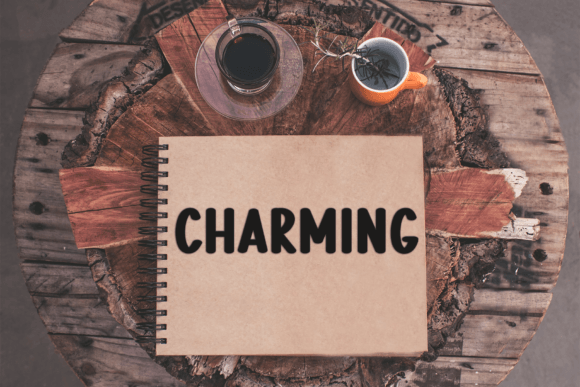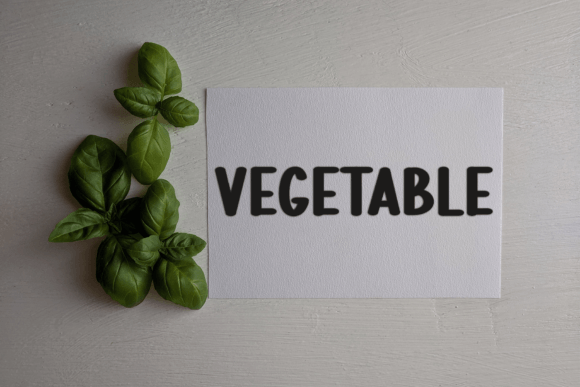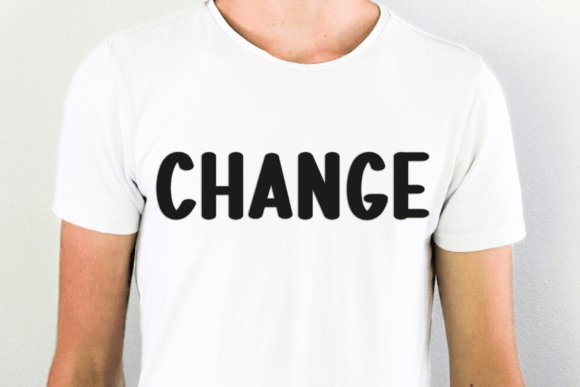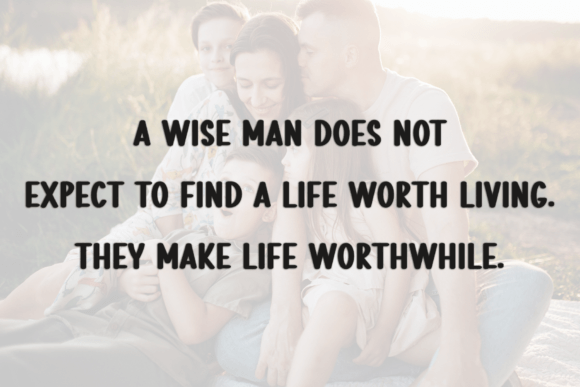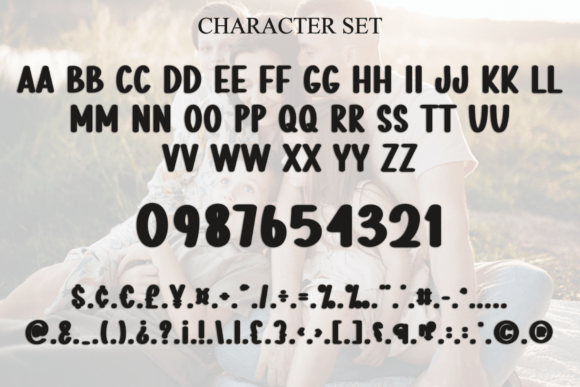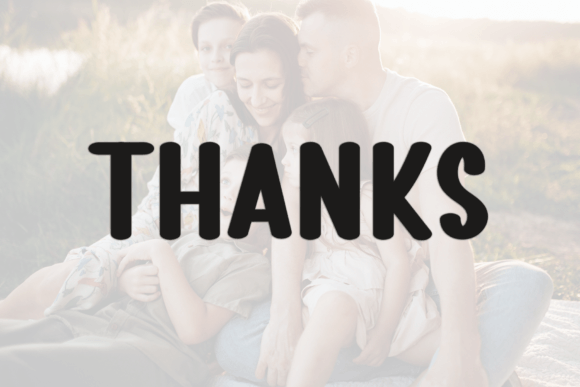
Enter the Familly Font, a lovely and bold display font that exudes elegance and class. This font was particularly crafted for those who need a beautiful and refreshing look to their designs. Whether you’re working on a branding project or creating a social media campaign, the Familly Font is the perfect choice to add a touch of sophistication to your work.
Familly Font Key Features
- Font Family: Familly Font is a sans-serif font family designed for clear and modern typography. It includes 4 font styles: Light, Regular, Medium, and Bold.
- Unique Characteristics: Familly Font features a clean and minimalist design, making it perfect for modern and professional applications. The font family includes a wide range of characters, including Latin, Cyrillic, and Greek alphabets, as well as punctuation and symbols.
Familly Font Review
First off, let me say that I was excited to dive into the Familly Font and see what it had to offer. After some exploration, I can honestly say that it’s a solid choice for certain types of projects. Here are some things that work well:
- ✨ Friendly and approachable vibe: The Familly Font has a warm, inviting feel that’s perfect for family-oriented businesses, non-profits, or any brand that wants to come across as approachable and trustworthy.
- ✨ Clean lines and modern feel: The font’s design is sleek and modern, making it a great choice for projects that require a clean and contemporary look.
- ✨ Good legibility: The font is easy to read, even at smaller font sizes, which is a must-have for any font.
However, I do have to mention some limitations:
- ⚠️ Limited expressiveness: While the font is great for certain types of projects, it may not be the best choice for more creative or expressive projects that require a font with a lot of personality.
- ⚠️ Not ideal for small text: While the font is legible, it’s not the best choice for small text, as it can become difficult to read.
Overall, I think the Familly Font is a solid choice for certain types of projects, but it may not be the best fit for everyone. If you’re looking for a font that’s friendly, approachable, and easy to read, it’s definitely worth considering.
Family Font is ideal for:
– Creating a consistent brand identity
– Designing invitations and event materials
– Building a personal or professional website
– Developing marketing materials and social media graphics